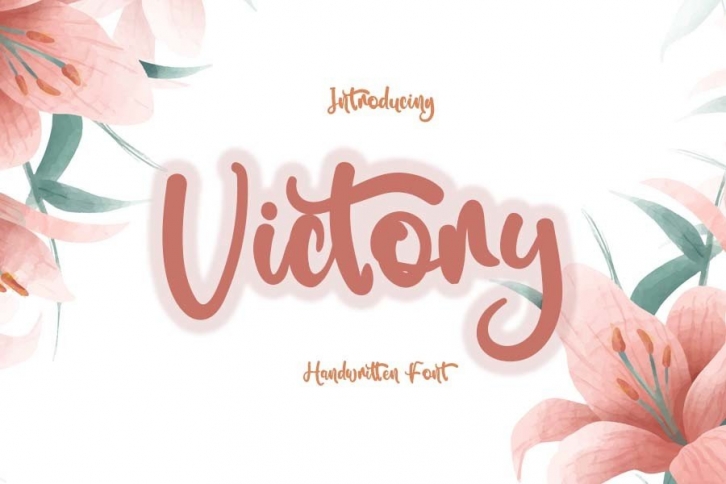
Victory is a lovely script font featuring charming, playful characters that seem to dance along the baseline. Add this font to your most creative ideas, and notice how it makes them stand out!